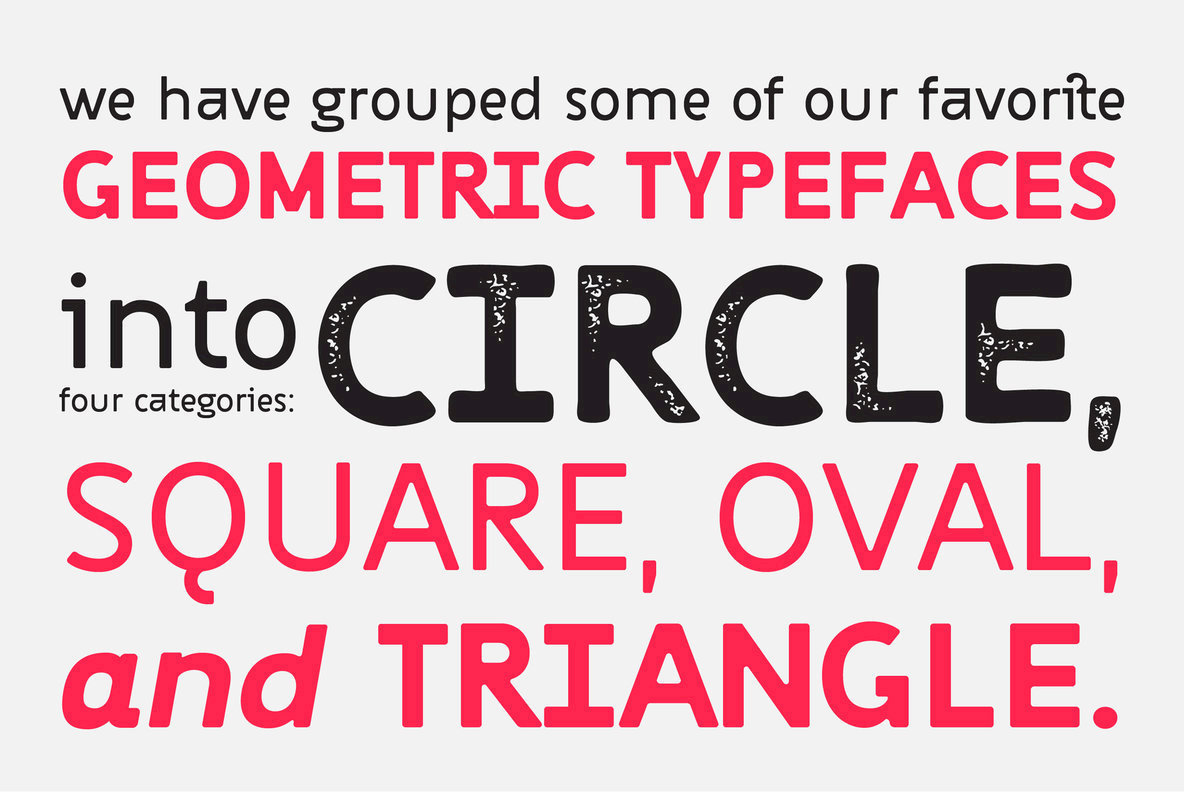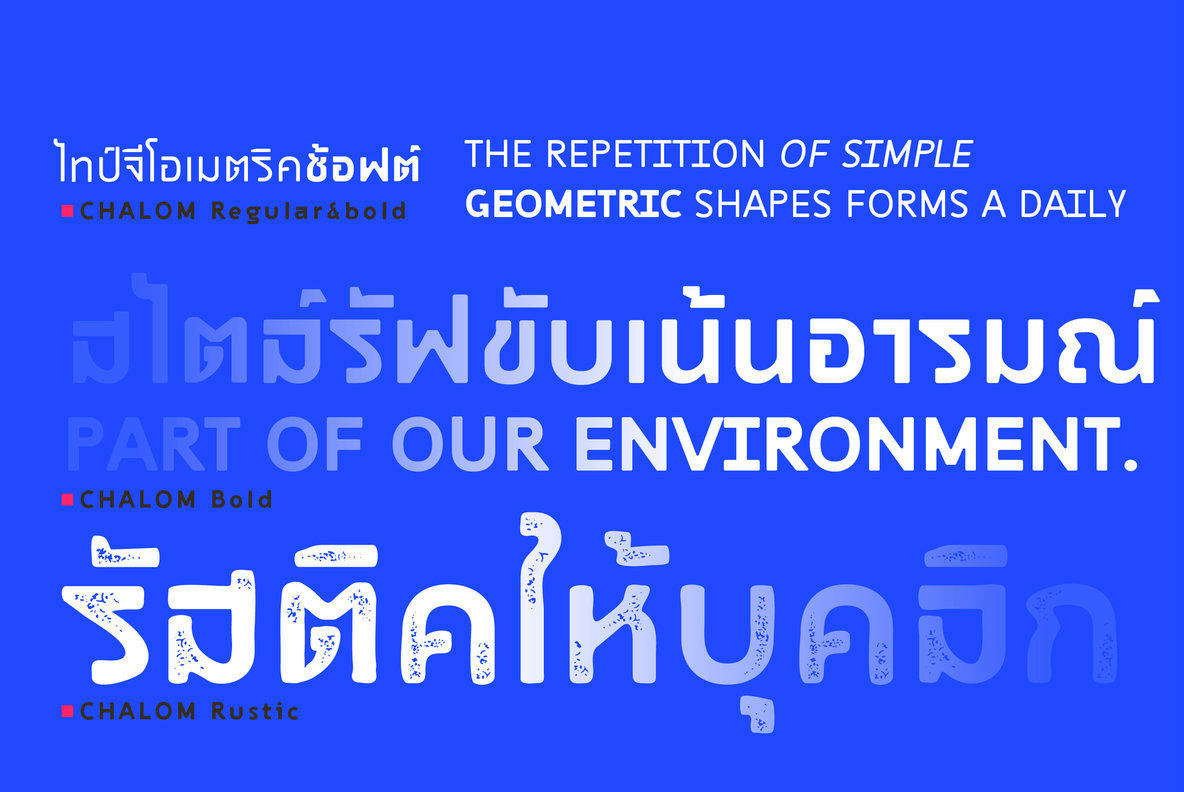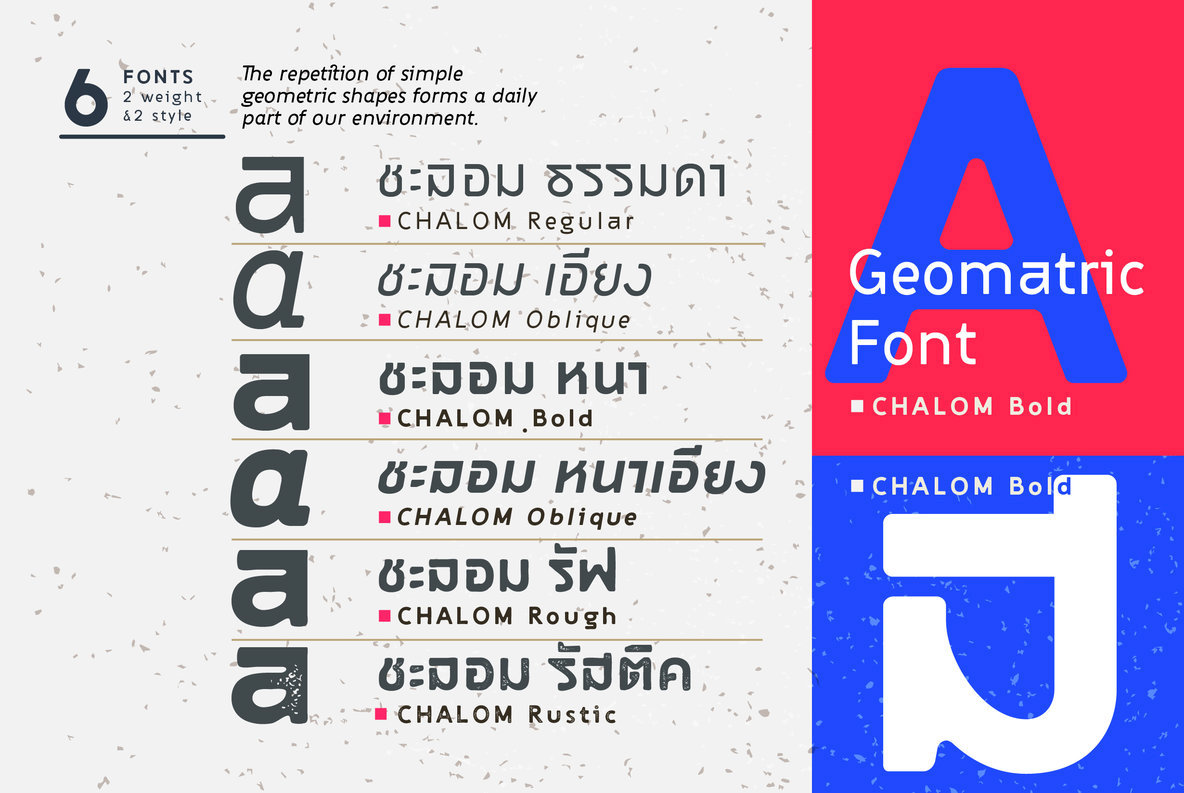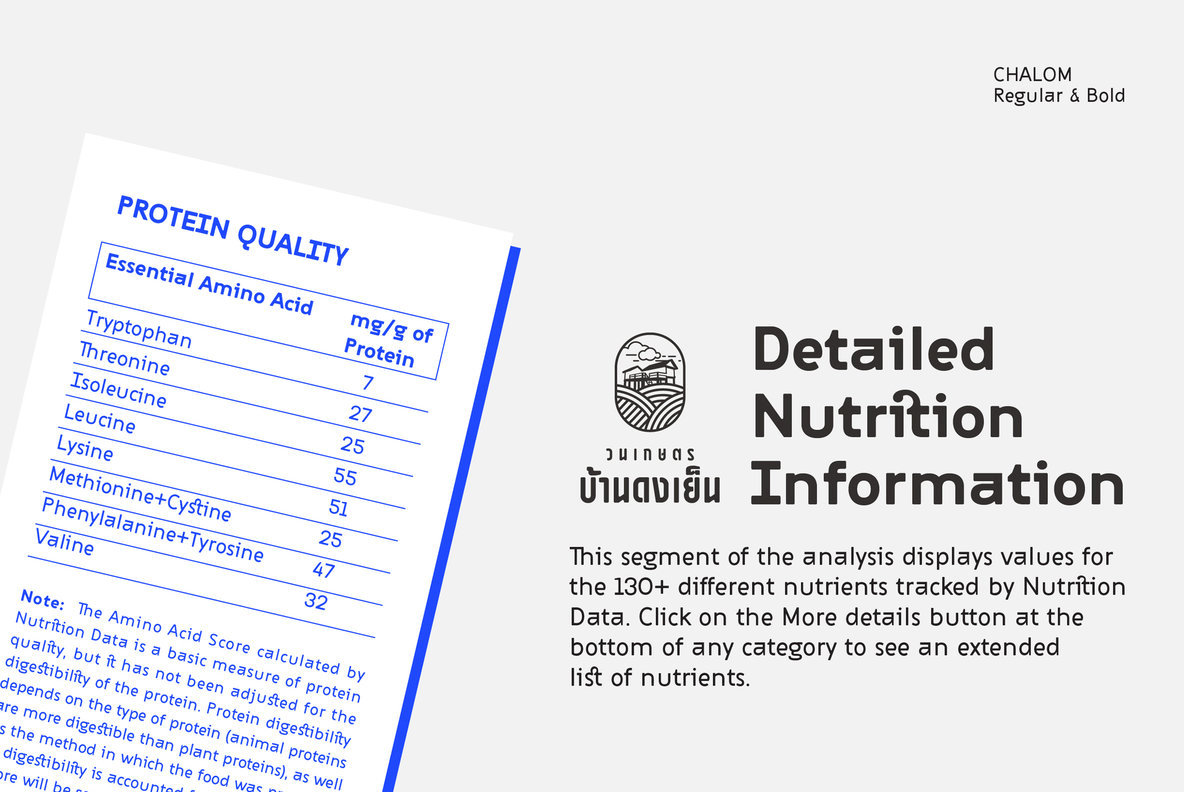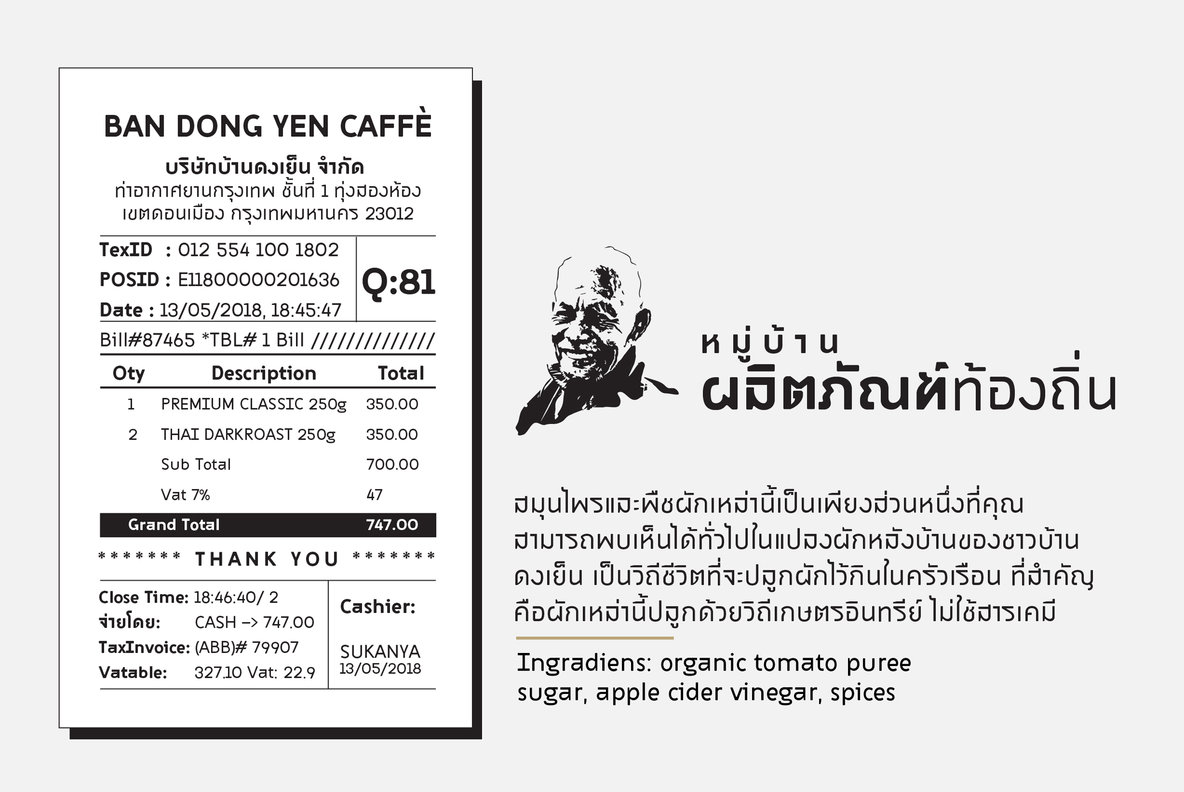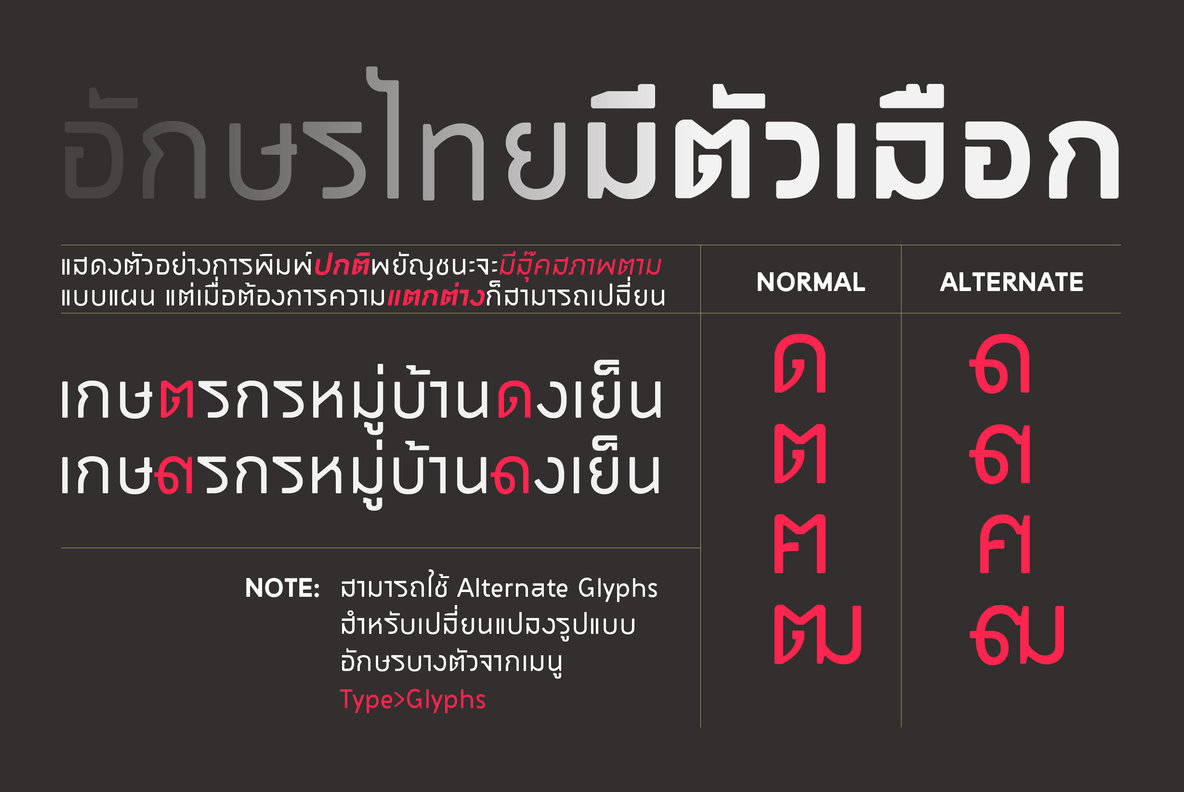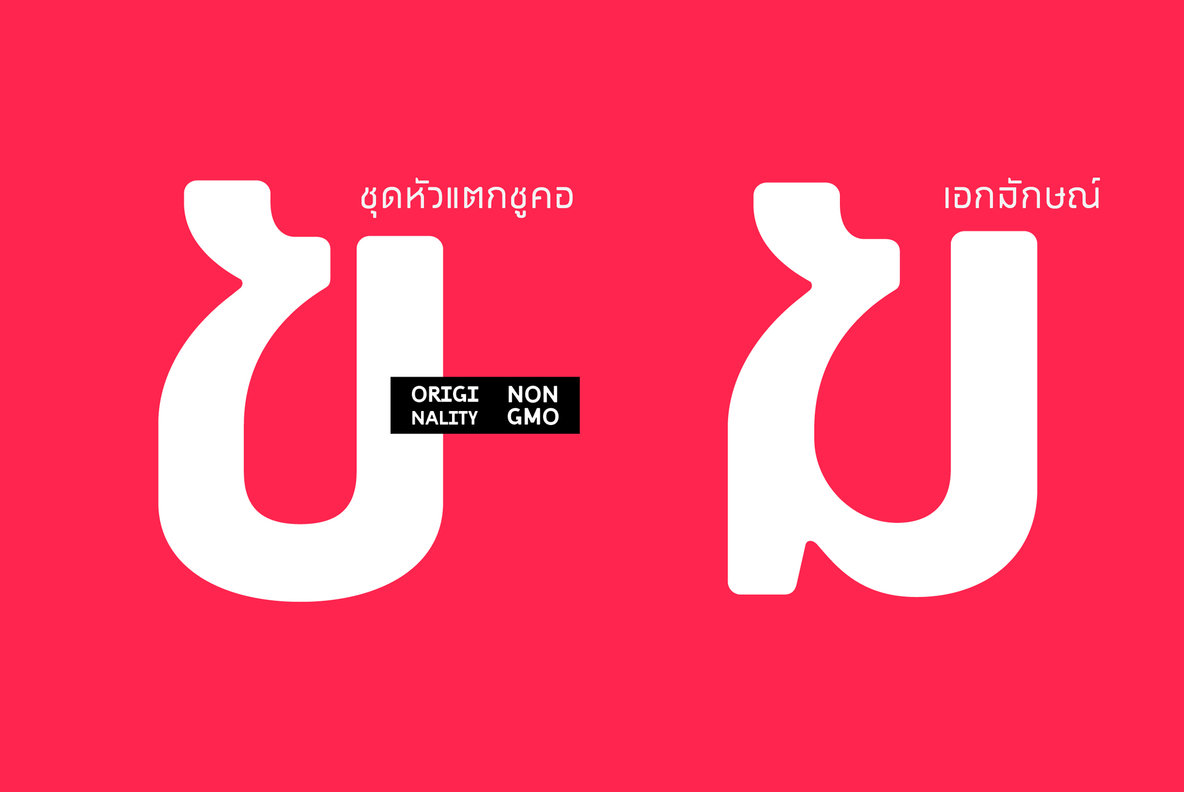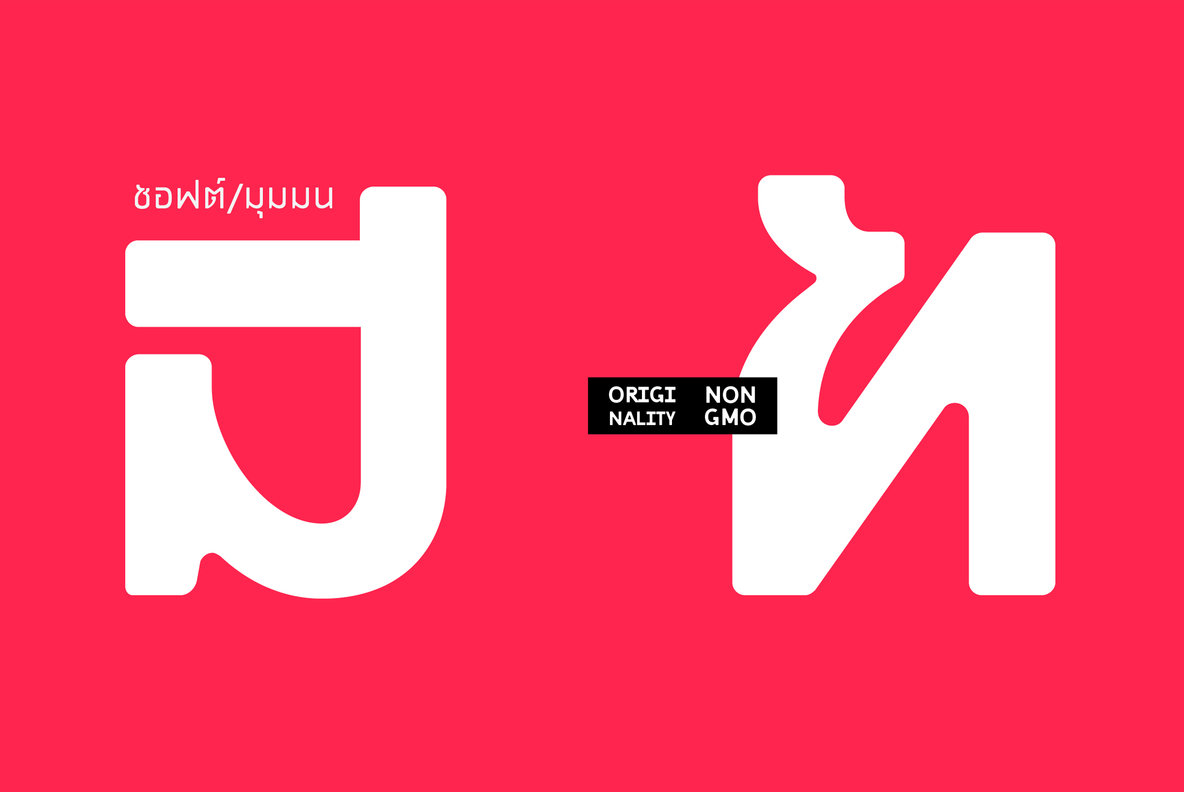
CHALOM Font
Chalom presents a harmonious blend of modernity and elegance, brought to life through its geometric sans serif design. Ideal for both headings and body text, this font family adapts effortlessly across diverse applications. Its precisely crafted geometric shapes ensure a sleek and refined aesthetic for each character.Chalom: Elegant Geometric Sans Serif